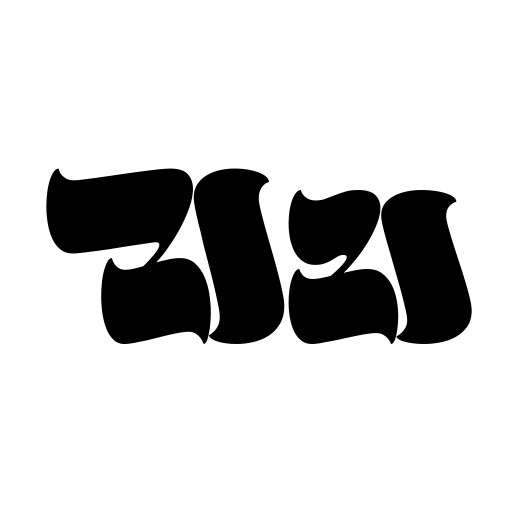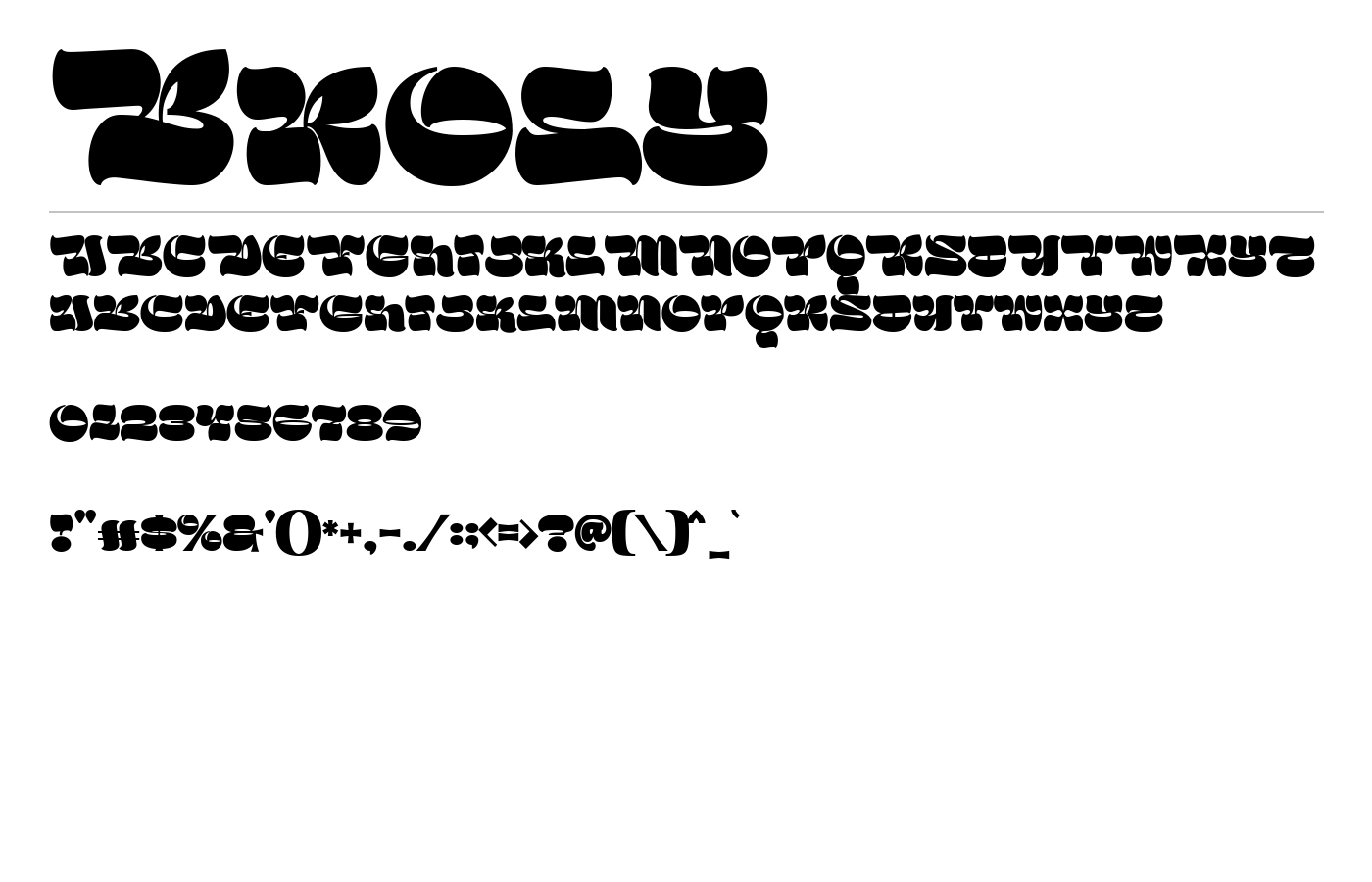
Broly is a bold, chunky display font characterized by its heavy weight and highly stylized, almost playful letterforms with smooth, rounded edges and thick strokes. Its unique and whimsical shapes make it ideal for eye-catching headlines, logos, or creative branding that seeks to convey a fun, energetic, and unconventional vibe. This font works best in settings where strong visual impact and personality are needed, rather than for body text or long passages.
Broly Font
About Broly Font